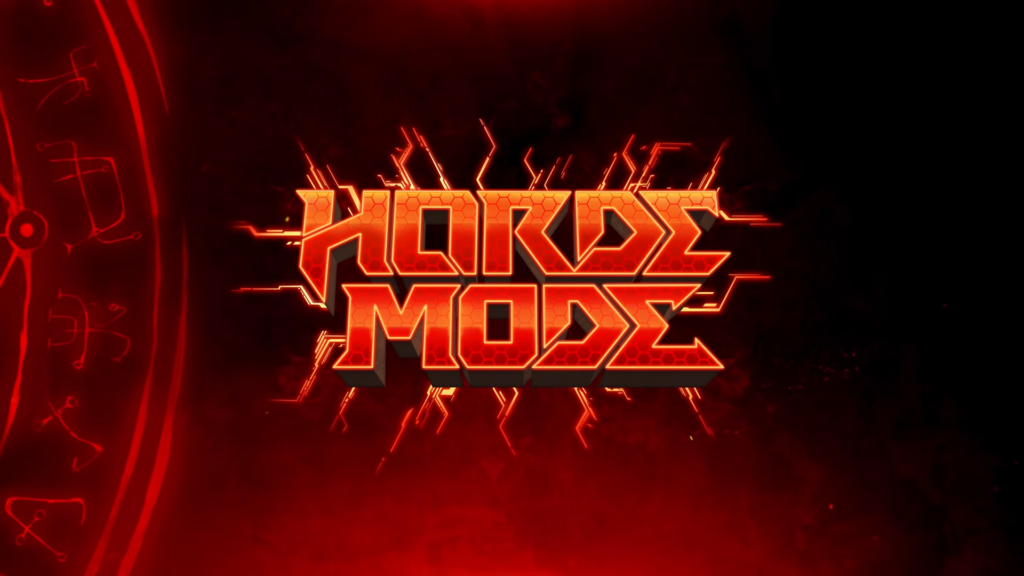
Doom Eternal Font Copy And Paste
Doom and strife use hardcoded graphics for menu text, so they don't really have a menu font — the ones used here are from gzdoom, which reverse engineered and extended them. Use them to destroy ambiguity and help your friends experience your text as you want. You can type 'doomlogo' to add the doom logo to your text.
Anyway, i have it in an lbm, which is what i recieved it in (if you can read that format), and also a bitmap (so i could copy/paste from paint). A set of 3 fonts based on doom 2016/doom eternal logo. Make games, stories and interactive art with scratch.
This tool generates strange text with markings on the characters that often makes it hard to read and look like it's spoken or written by some sort of demonic/satanic creature or beastly abomination. You can download the images and share on your social media profiles. I'm aware that a font family based on doom logo already exists, but that one feels more suitable for the classic doom logo, while this one is for the modern doom logo.
The fonts in use section features posts about fonts used in logos, films, tv shows, video games, books and more; Most fonts only handle numbers, basic punctuation, and english letters. At least that's what it looks like to me.
Doom 2016 by hk fonts. The doom logo also exists as a ligature within these fonts. You can download the images and share on your social media profiles.
The font used in the logo of doom is very similar to amazdoom designed by amazingmax. Make your own cool text emoticons (also known as kawaii smiley faces and text emoji faces from symbols) or copy and paste from a list of the best one line text art smiley faces. Before release, the source code was tidied up by bernd kreimeier;
Font meme is a fonts & typography resource. Letters copy and paste demonic language text demonic text generator demonic writing copy and paste dhoom 2 a symbol images dhoom logo doom 1 logo doom 1993 font doom 1993 logo doom 2 font doom 2016 logo doom 3d free download doom art style doom clan font doom eternal logo. Download icons in all formats or edit them for your designs.